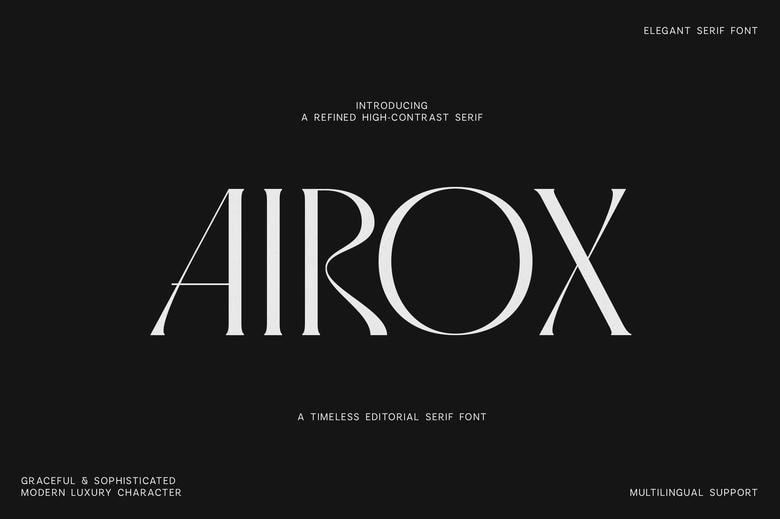
Airox Font
Airox is an elegant serif font designed for sophisticated branding and eye-catching display work. Its graceful style works well for luxury logos, fashion brands, magazines, beauty and perfume packaging, boutique hotels, resorts, wedding stationery, restaurant menus, posters, invitations, social media graphics, and stylish website headlines.
Airox brings a polished and memorable look to any design, whether it’s a simple wordmark or a bold editorial title.
Airox Luxury Editorial Serif Font